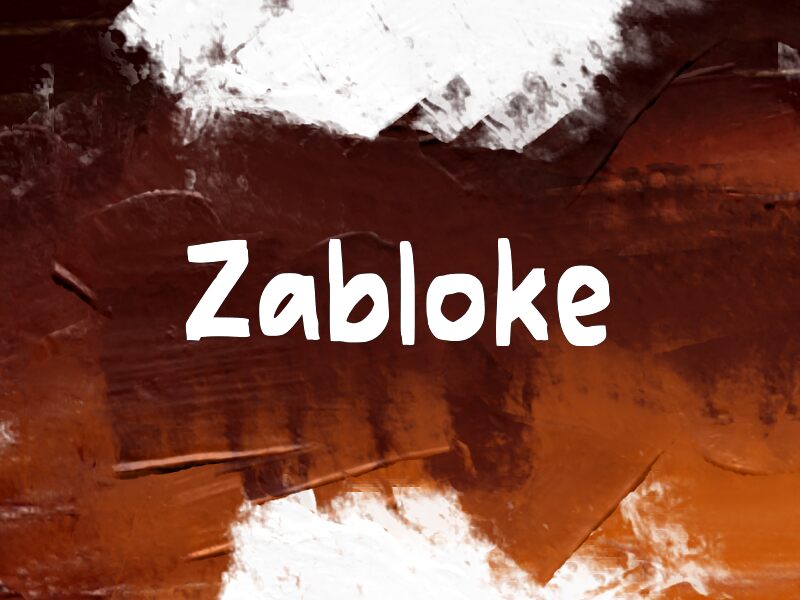
Zabloke
Zabloke font by wepfont.com is a free brush font that turns loose, hand‑painted energy into something you can actually read at a glance. The letters are chunky, inky, and slightly wobbly, but the spacing stays clean and open, so words don’t collapse into a mess. It feels like thick marker strokes on poster paper—bold, casual, and friendly without getting chaotic.
Using Zabloke, you can bring that handmade punch to kids’ book covers, playful logos, event posters, social media graphics, packaging, and bold section headers. This free font shines when used big, where its textured edges and rounded forms can really show. For a simple combo, pair Zabloke as your headline star with a plain sans serif for body text to keep everything readable and grounded.